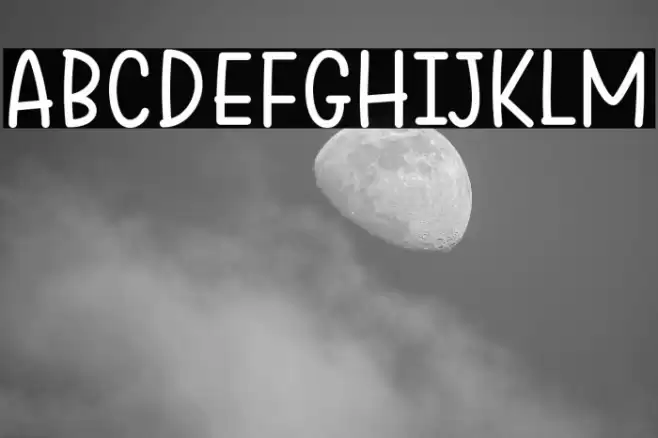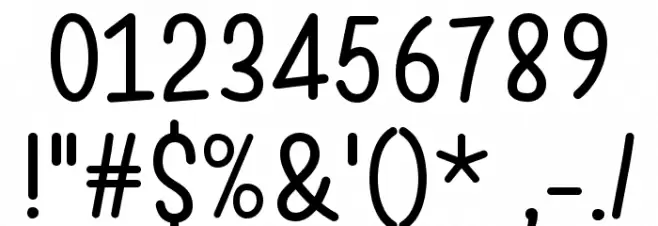
Warung Kopi Font
Warung Kopi Description
This font features a playful and informal handwritten style, characterized by its rounded and slightly irregular letterforms. The uppercase and lowercase letters maintain a consistent flow, with a casual and friendly appearance. The numerals and special characters complement the overall style, making it suitable for creative and informal designs. The strokes are uniform in thickness, contributing to a clean and approachable look. This font is versatile for various design projects that require a touch of personality and warmth.
A playful handwritten font with rounded, informal letterforms from Uncategorized fonts.
- Font: Warung Kopi
- Proposed Projects: Ideal for greeting cards, children's books, casual branding, and social media graphics.
- Overall Style: Casual
- Use Case: Headlines, Logos, Informal Text
Warung Kopi UPPERCASE
Warung Kopi LOWERCASE
Warung Kopi OTHER CHARS